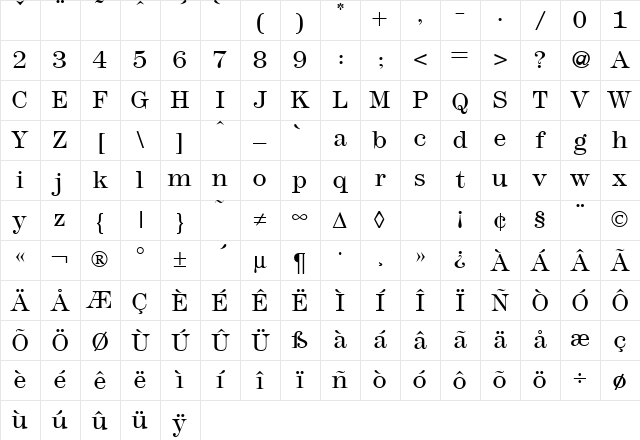
Modern438Light Regular
Design Context for Modern438Light
Modern438Light is a composed and adaptable typeface that performs quietly and consistently across a wide range of design contexts. Its slender proportions lend an understated elegance to any composition.